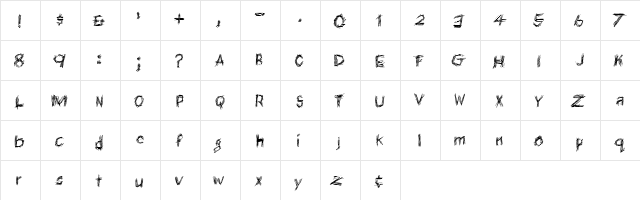
Scratch Regular
Design Context for Scratch Typeface
Scratch is a composed and adaptable typeface that performs quietly and consistently across a wide range of design contexts.